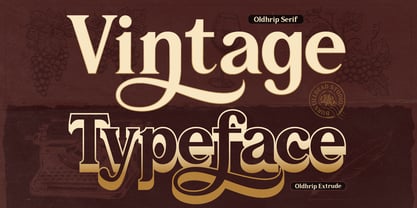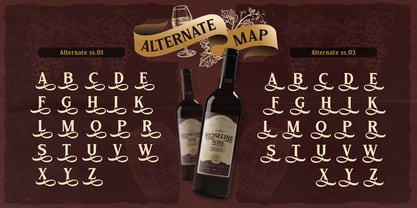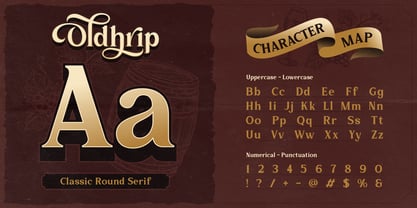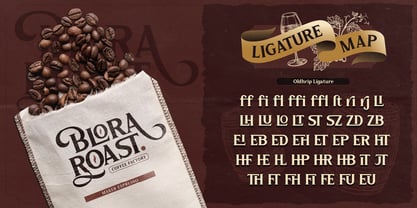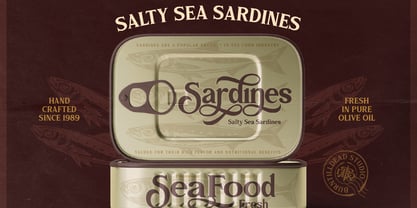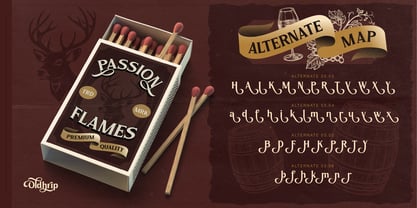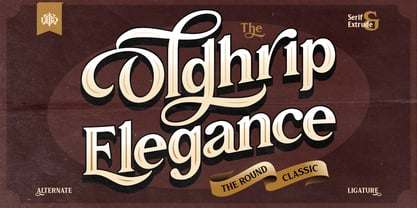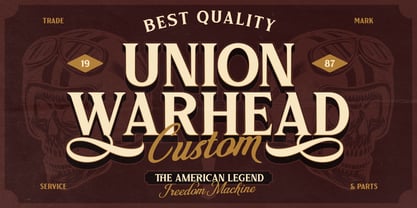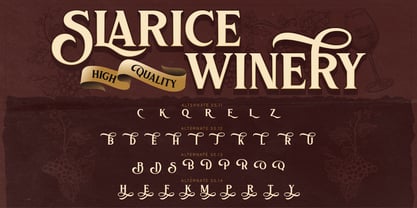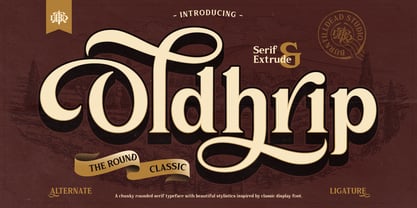
Oldhrip
par Burntilldead
La famille de polices Oldhrip a été conçue par Eric Kurniawan et publiée par Burntilldead. Oldhrip contient 2 styles et options de package familial. En savoir plus sur cette famille
Introducing Oldhrip, a rounded serif typeface with beautiful stylistic details inspired by classic display fonts. Featuring soft, round curves combined with bold, sturdy strokes, Oldhrip brings a warm vintage character that still feels clean and highly readable.
This font comes in two styles — Regular and Extrude — giving you flexibility from elegant serif branding to bold dimensional display lettering. Complete with alternate characters and elegant ligatures, Oldhrip lets you create unique, hand-crafted looking compositions without any manual editing.
Perfect for creating a classic, premium, and timeless impression on any design project.